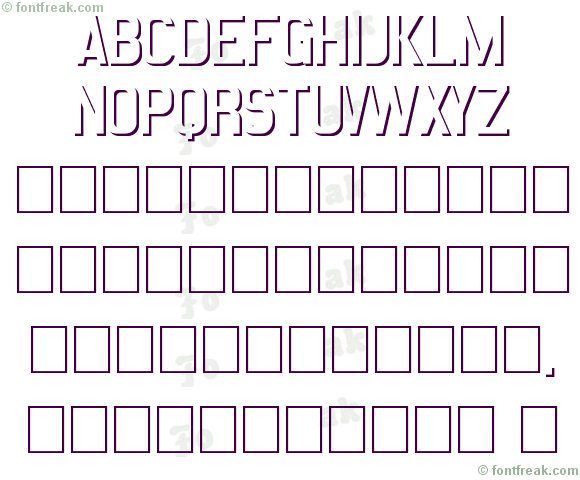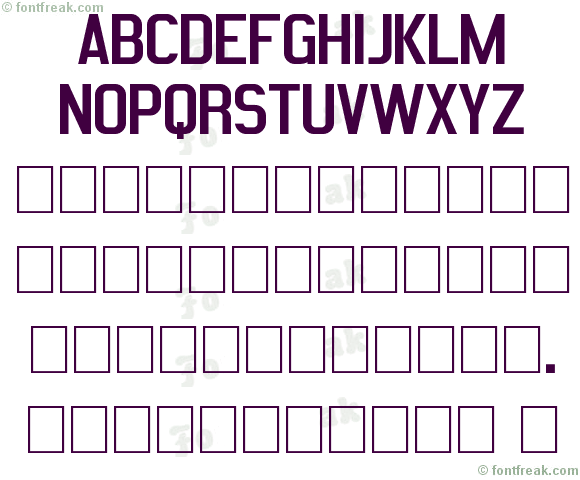
Sans Statement Regular
Emboss Statement Regular
Statement Shadow Regular
Sans Statement Regular by Steve Gardner is a versatile sans-serif font that combines modern aesthetics with functional design. It features a clean, geometric appearance characterized by consistent stroke weights and minimal contrast, making it highly legible and suitable for various applications. The spacing between characters is thoughtfully designed, ensuring clarity and readability, whether used in print or digital formats. The font also introduces subtle decorative elements, such as soft shadows and an embossed effect, adding depth and sophistication to the overall look.
This font excels in a range of use cases, making it an excellent choice for graphic designers and content creators alike. Its sleek design is ideal for corporate branding, where a professional yet approachable feel is needed. It works beautifully on restaurant menus, providing a contemporary vibe that appeals to a modern clientele. Additionally, Sans Statement Regular is perfect for creating eye-catching movie posters, where its bold presence can draw attention. Wedding invitations can benefit from its elegance, offering a stylish touch to any special occasion. Small business owners will find this font useful for promotional materials, as it communicates a sense of reliability and innovation.
The target audience for Sans Statement Regular includes graphic designers, small business owners, and content creators who seek a font that balances aesthetic appeal with practical functionality. This font stands out due to its unique blend of simplicity and sophistication, making it a valuable addition to any designer's toolkit. For those looking to elevate their projects, the Sans Statement Regular font free download offers an accessible opportunity to enhance creative work with a professional touch.